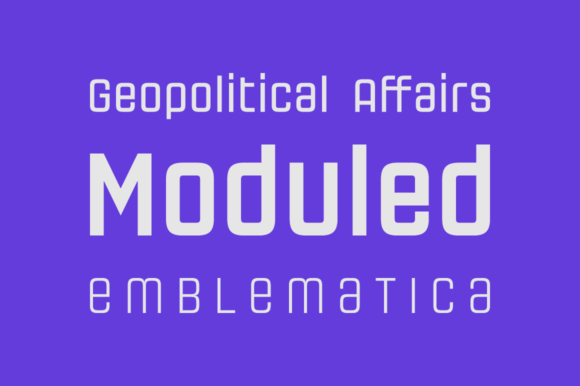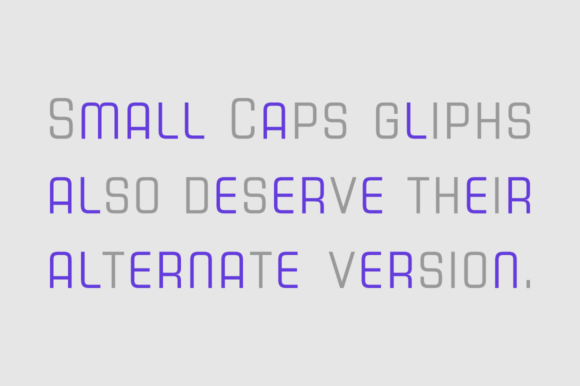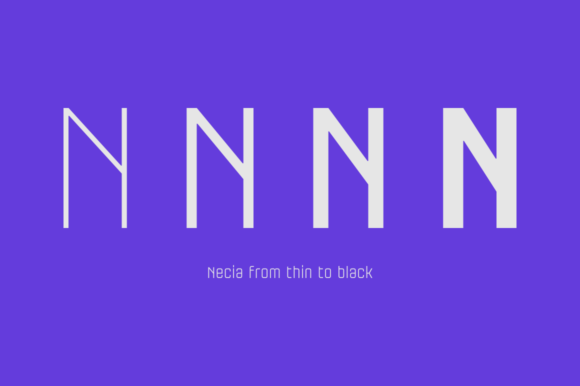
Introduction to Necia Family Font
Necia font family has been designed for Graviton Font Foundry by Pablo Balcells in 2014.
It is a modular, geometric and slightly condensed typeface which has been conceived to be primarily a display typeface, but given its clarity it can also be used for composing short and intermediate length texts Necia consists of 8 styles.